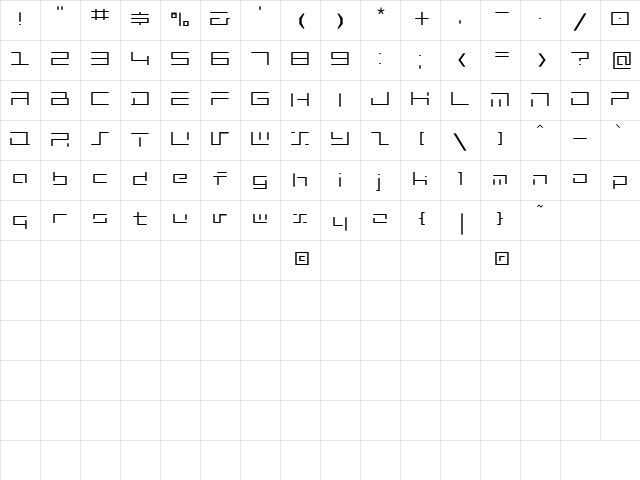
MINIMALHARD Regular Font Preview
MINIMALHARD Regular
Design Context for MINIMALHARD Typeface
MINIMALHARD takes a measured approach to typography — its balanced proportions and neutral character make it a reliable workhorse for both digital and print work.